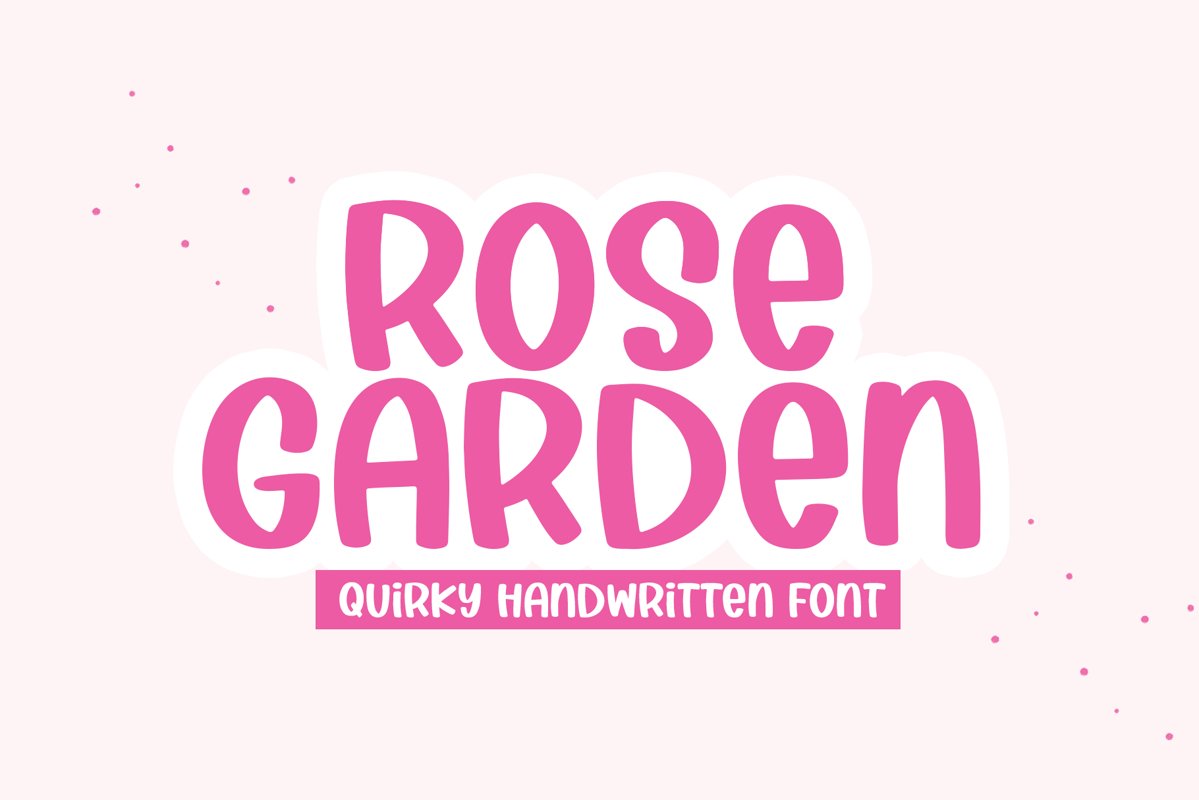
Rose Garden is a fun handwritten font!
This font is perfect for quotes, shirt designs, websites, branding, children's designs, svg designs, blogs, logos, invitations and more!